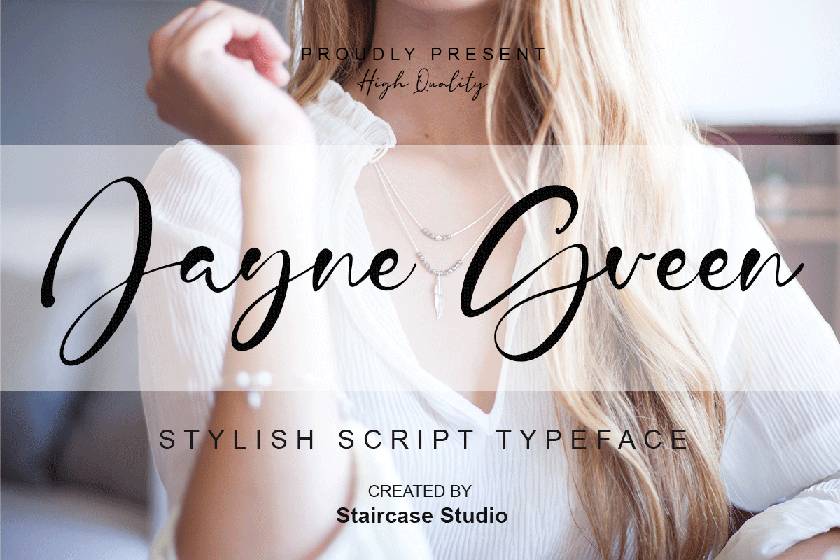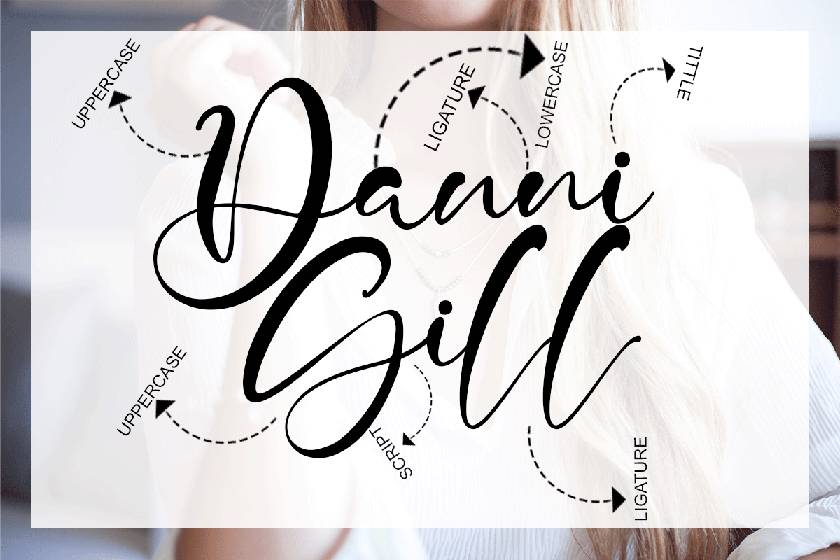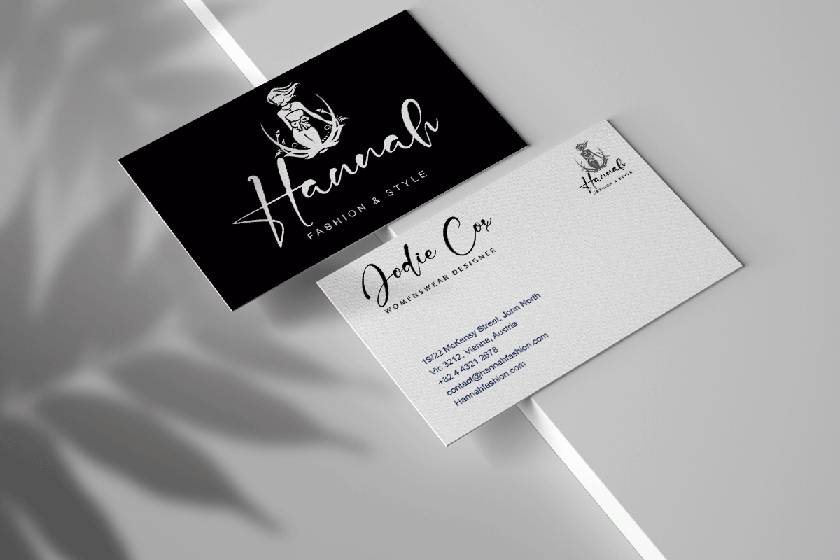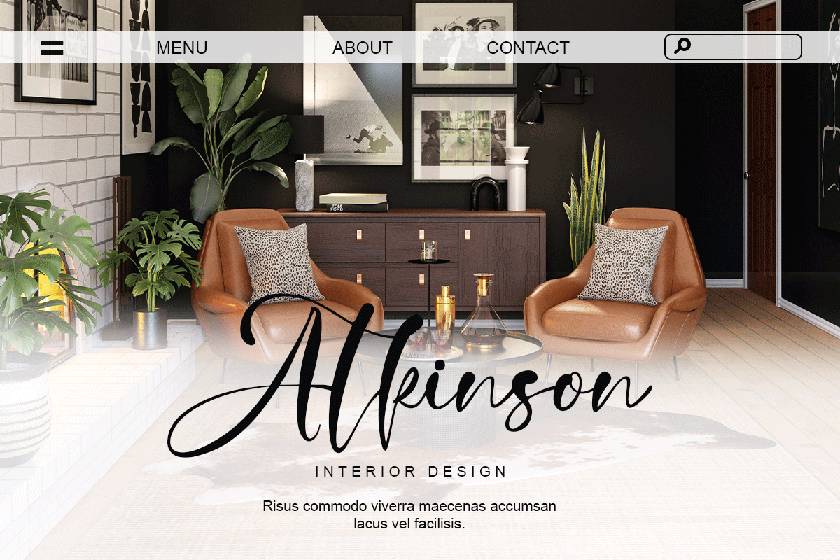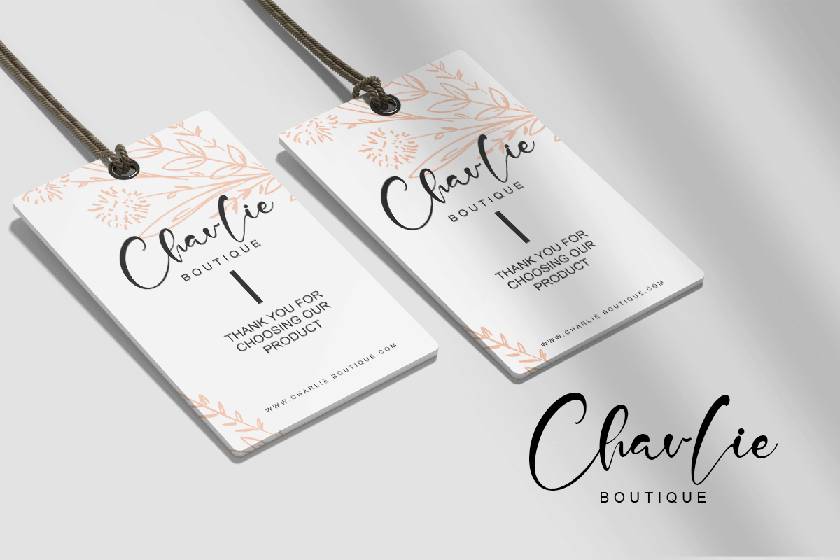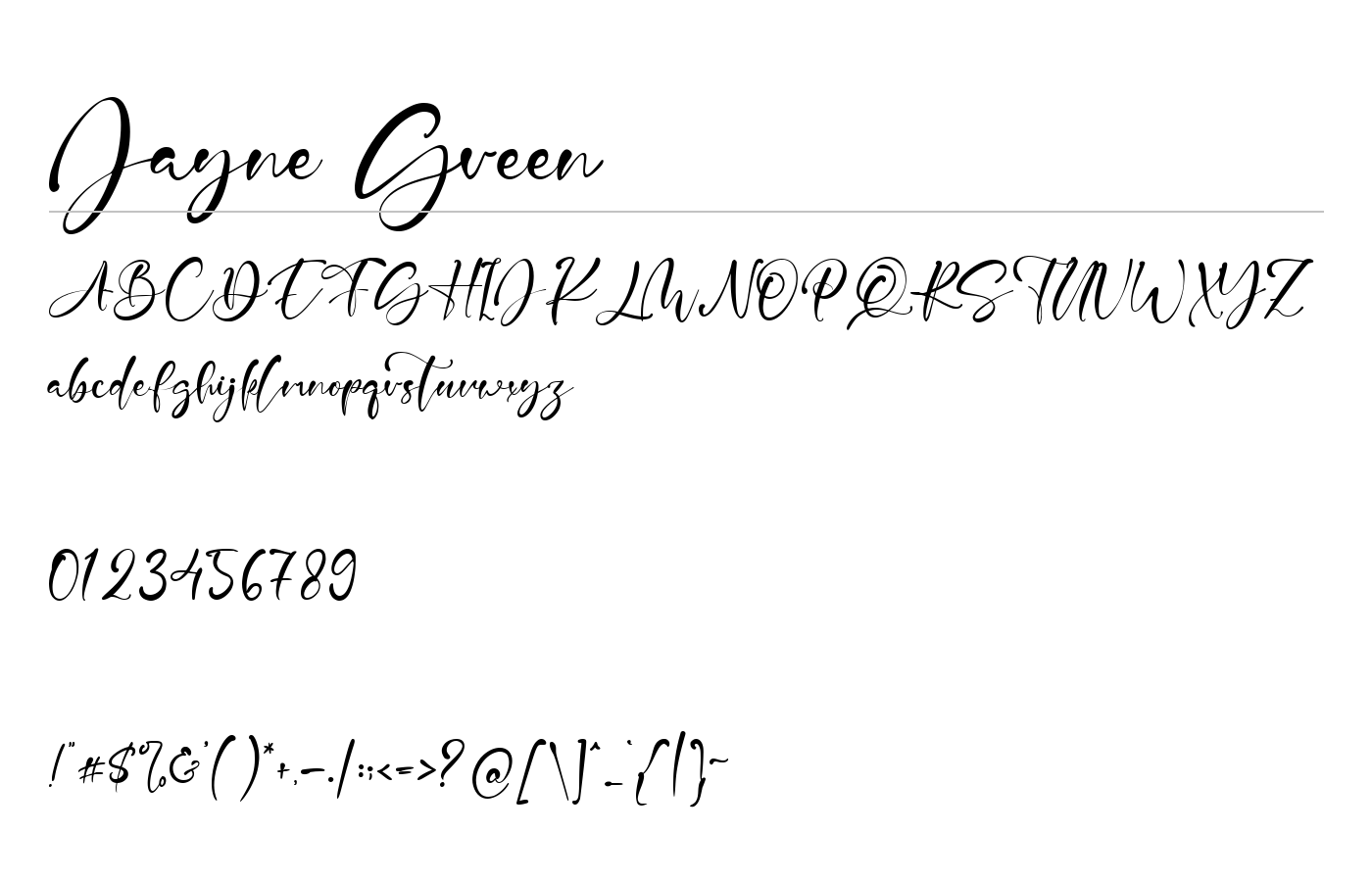
Jayne Green is an elegant script font with flowing, handwritten letterforms that combine sophistication and charm. Its slender, delicate strokes and graceful curves make it perfect for luxury branding, invitations, and stylish logos where a refined, personal touch is desired. This font shines best in headlines and decorative text, adding a sense of warmth and artistry to any design.
Jayne Green Font
| Designer | Staircase Studio |